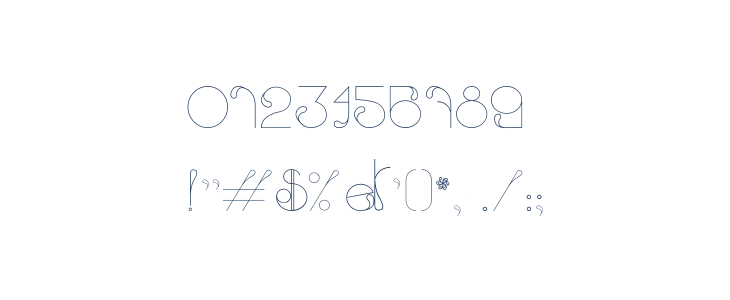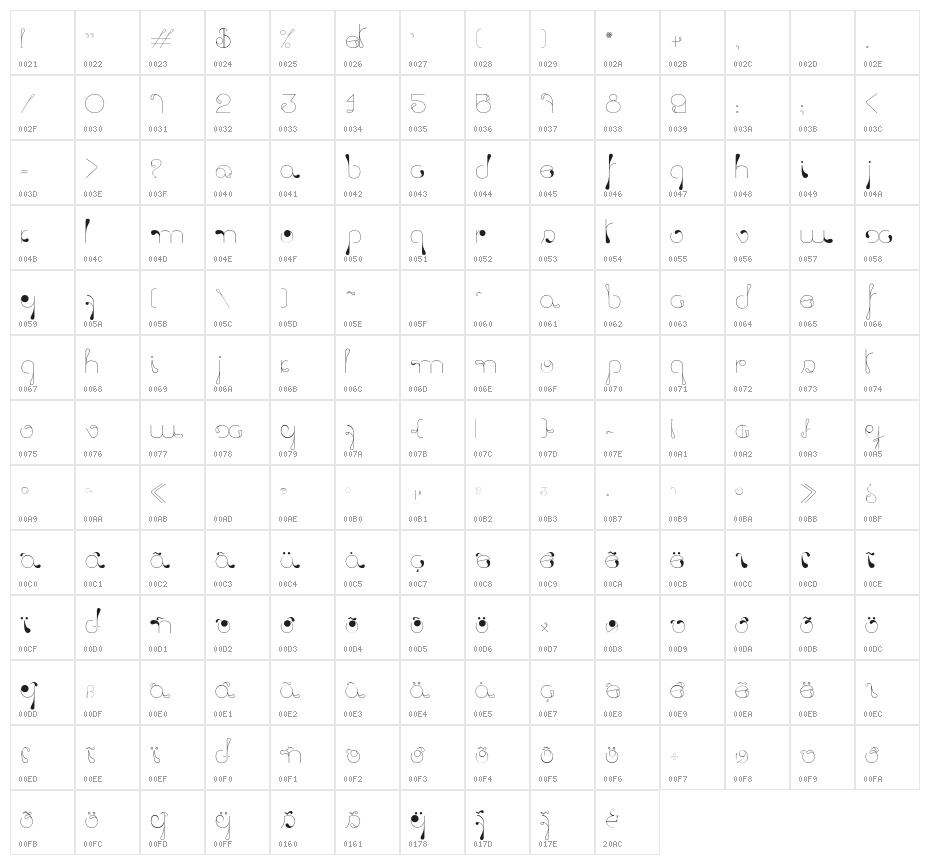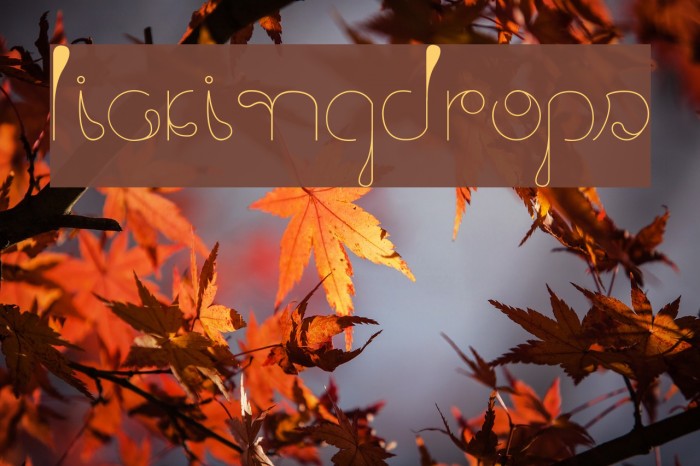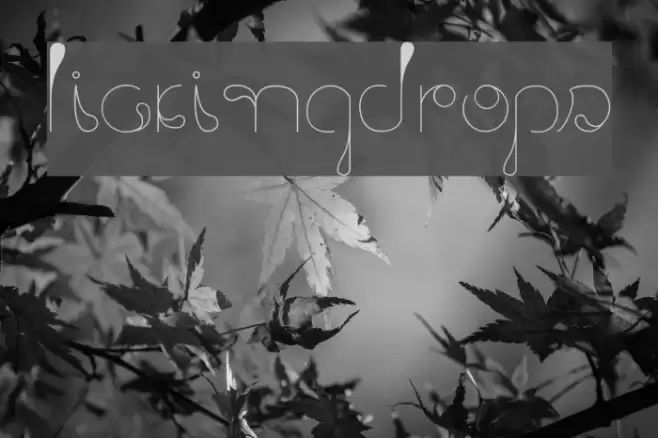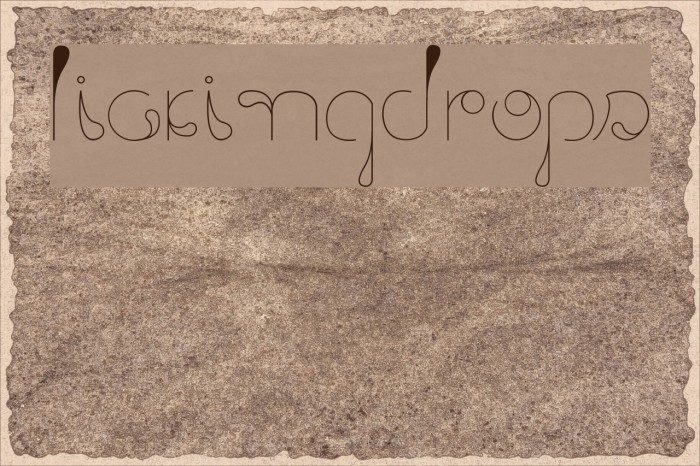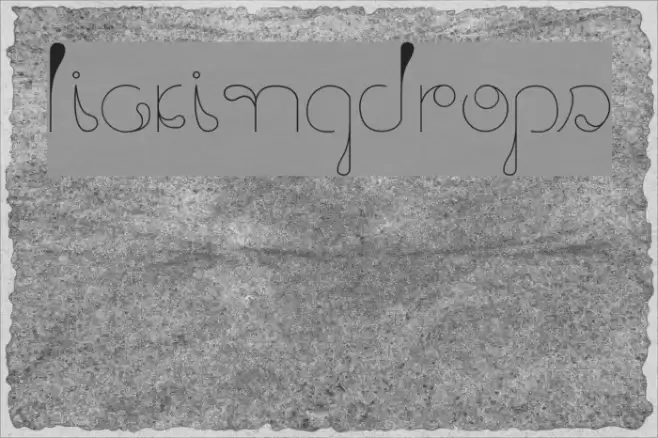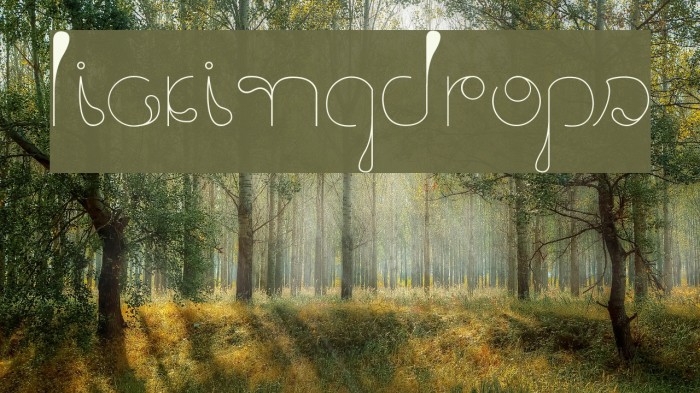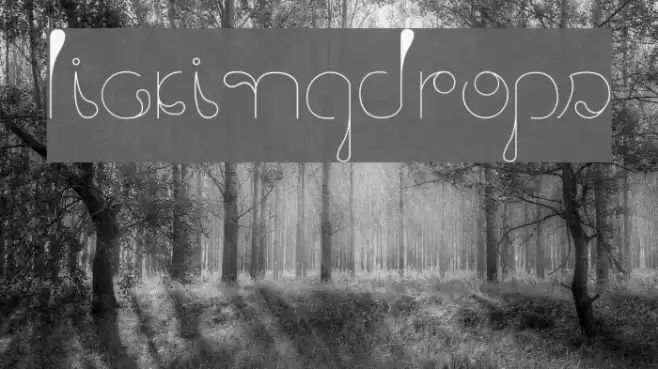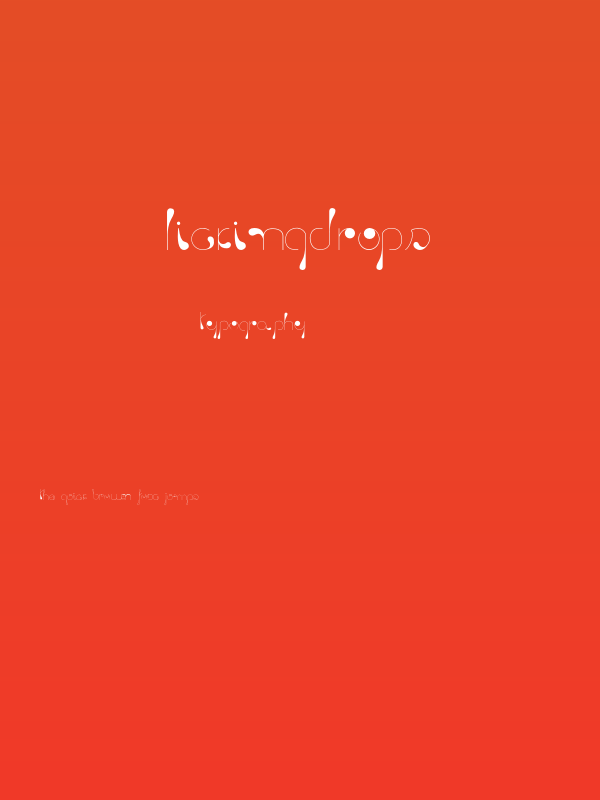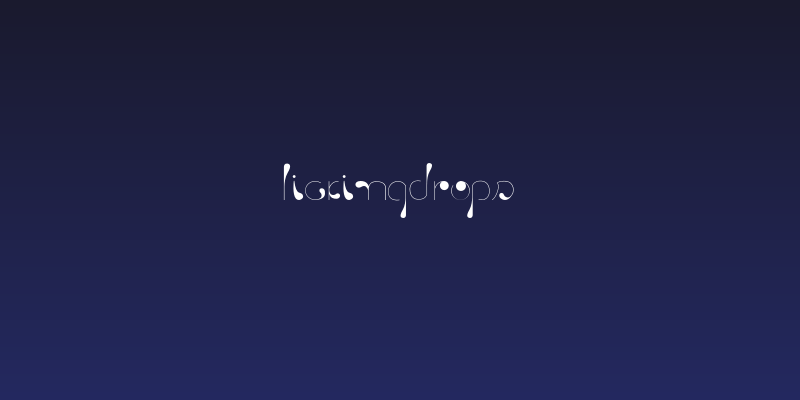
LickingDrops Font
LickingDrops Description
This font features a unique and artistic design, characterized by its fluid, droplet-like terminals and elegant curves. The uppercase and lowercase letters exhibit a playful yet sophisticated style, with varying stroke thickness that adds a dynamic quality to the text. The numbers and special characters maintain this whimsical aesthetic, making the font suitable for creative and decorative purposes. Its distinctive appearance makes it stand out, ideal for projects that require a touch of originality and flair.
| Proposed Projects | Ideal for branding, packaging design, invitations, and artistic posters. |